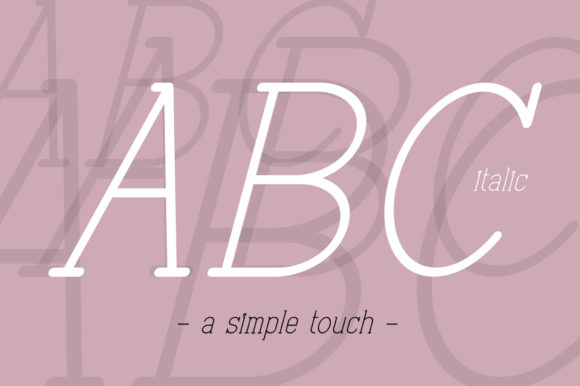
The Quest for the Perfect Font: Discovering ABC Italic
I still remember the design project that led me to discover ABC Italic. I was working on a book layout, and my client had a very specific vision: a clean, elegant font that would convey a sense of sophistication without being too over-the-top. I spent hours scouring font websites, trying out different serif fonts, but none seemed quite right. That was until I stumbled upon ABC Italic. Its simple, yet refined design immediately caught my eye, and I knew I had found the perfect fit. In this article, I’ll share my experience with ABC Italic, exploring its features, how to use it, and where it fits into the world of design.
An Honest Review of ABC Italic
- ✨ Clean and simple serif design that’s easy on the eyes
- ✅ Highly versatile, suitable for a wide range of projects, from books to web designs
- 💡 Great for body text, with excellent readability even at smaller sizes
- 🎨 Works well with a variety of design elements, from minimalist to ornate
While ABC Italic is an excellent font, it’s not without its quirks. For example:
- 🤔 It may not be the best choice for very large headings or titles, as it can lose some of its elegance at larger sizes.
- ⚠️ Some users may find the font a bit too plain, lacking the flair of more decorative fonts.
The Story Behind ABC Italic
ABC Italic was designed with the goal of creating a clean, versatile font that could be used for a wide range of applications. The designer aimed to create a font that was both elegant and approachable, with a subtle flair that would add sophistication to any design. While the exact details of the font’s creation are unclear, it’s evident that ABC Italic was crafted with care and attention to detail.
| Font Name | ABC Italic Font |
| Author | pointsandpicas |
Q: What type of projects is ABC Italic best suited for?
A: ABC Italic is highly versatile and can be used for a wide range of projects, including books, web designs, business cards, and more.
Q: Does ABC Italic support OpenType features?
A: Yes, ABC Italic supports OpenType features, including stylistic alternates and glyphs, allowing for added customization.
Q: Can I use ABC Italic in both print and digital designs?
A: Absolutely! ABC Italic is designed to be versatile and can be used in both print and digital designs with excellent results.